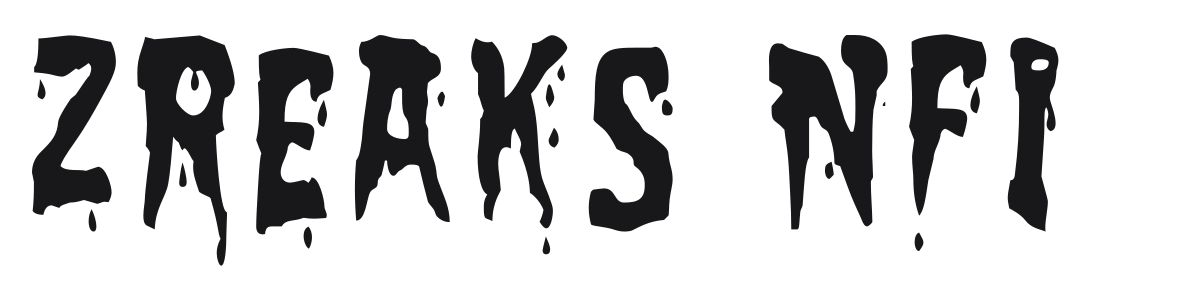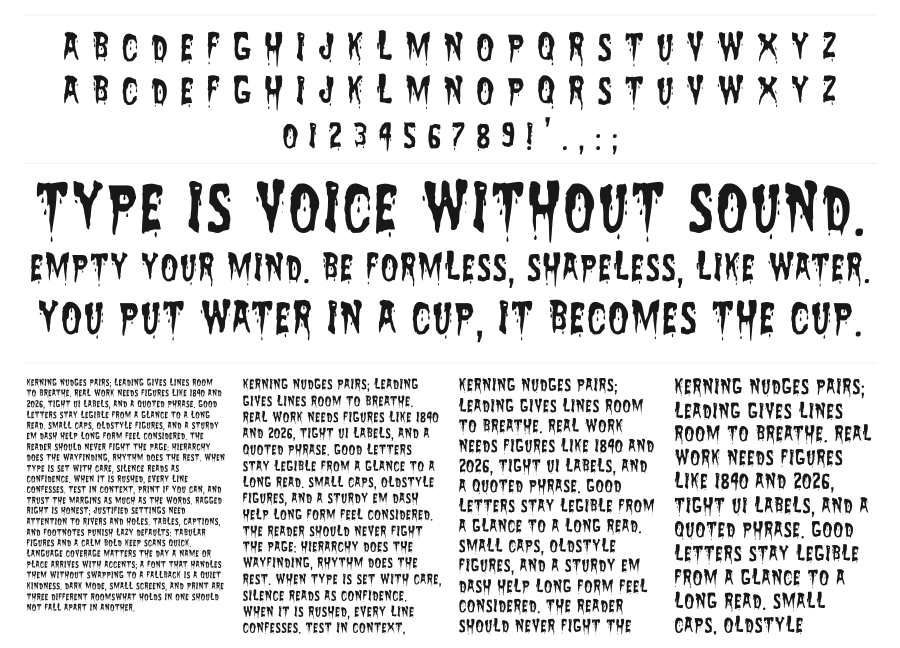
Zreaks NFI
Zreaks NFI is a dripping, horror-styled display face from Norfok Incredible Font Design, with letterforms that look like they're oozing downward in thick, bloody rivulets. It's unapologetically creepy, built for Halloween flyers, haunted house signage, horror titles, and anything that needs to feel like it was scrawled on a wall in something unsettling. Keep it big and keep it short, because readability isn't really the point here.